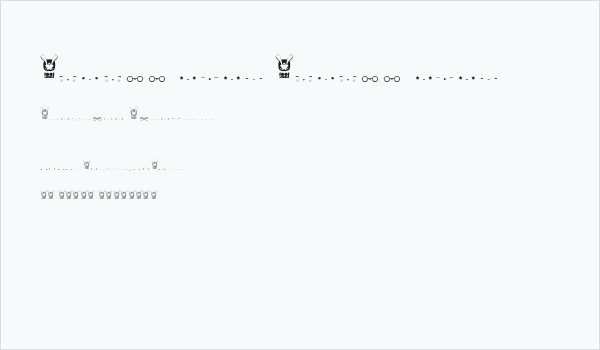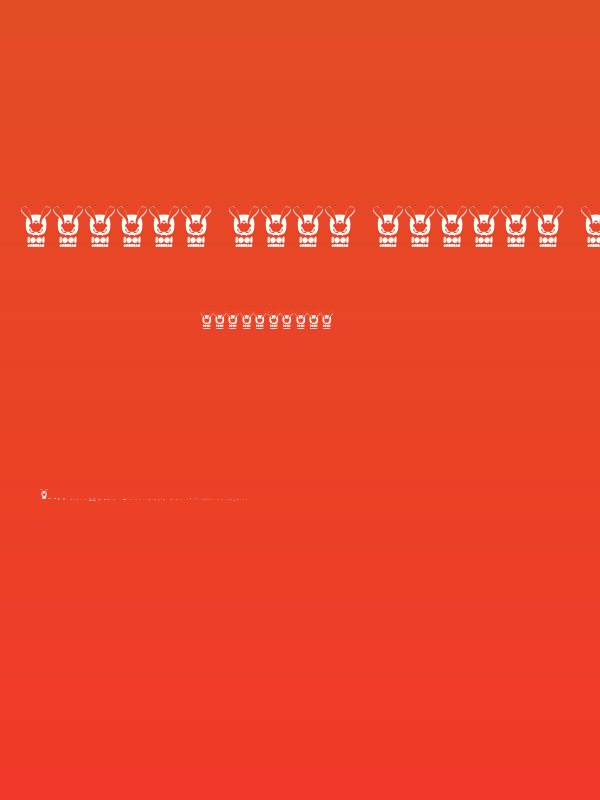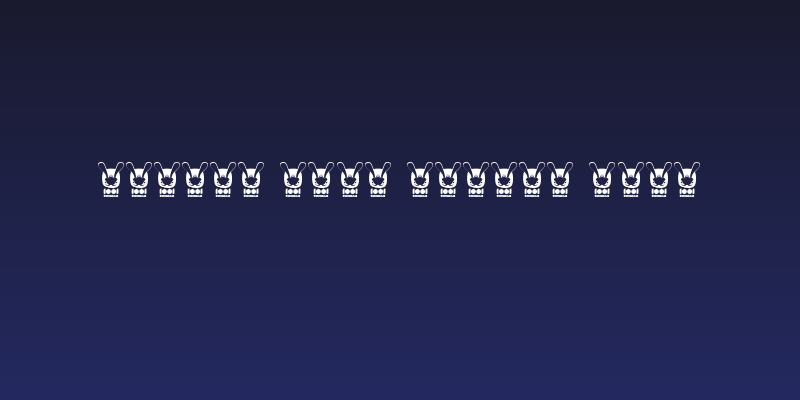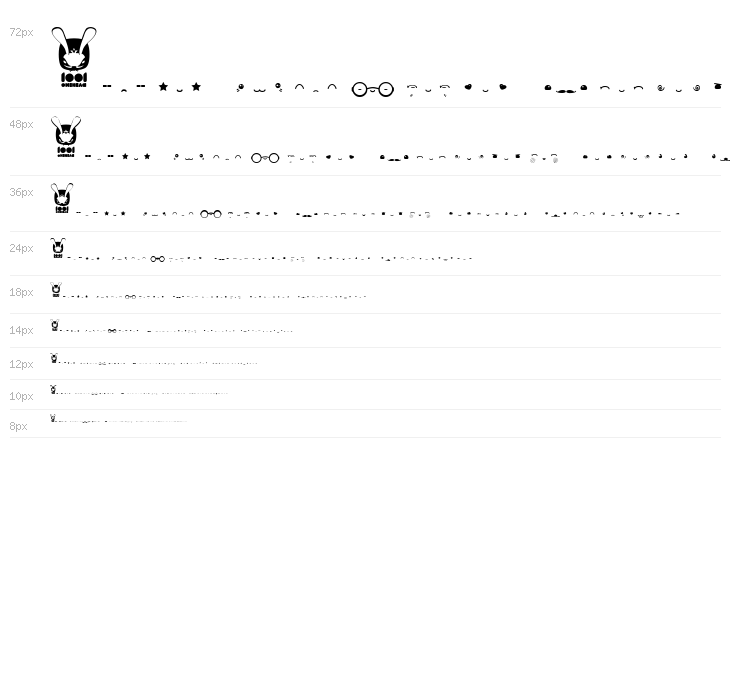
Kawaii eyes Font
Kawaii eyes Description
This is a decorative font featuring a series of playful and expressive eye designs, each with a unique style that conveys different emotions and expressions. The characters are highly stylized, incorporating elements of kawaii culture, which is known for its cute and charming aesthetic. The font includes a variety of eye shapes and expressions, from happy and excited to sleepy and surprised, making it ideal for projects that require a whimsical and fun touch. The designs are bold and graphic, with a consistent line weight that ensures clarity and readability even at smaller sizes. This font is perfect for adding a touch of personality and charm to any design project.
| Overall Style | Whimsical, Playful |
| Use Case | Logos, Posters, Social Media Graphics |
| Proposed Projects | Ideal for children's books, playful branding, greeting cards, and social media graphics. |